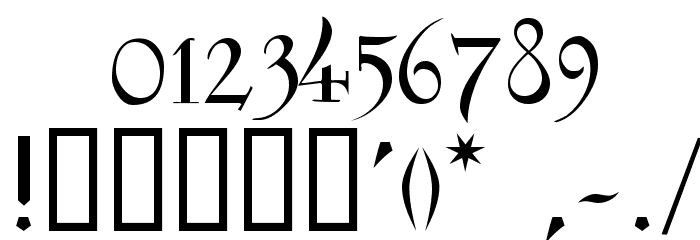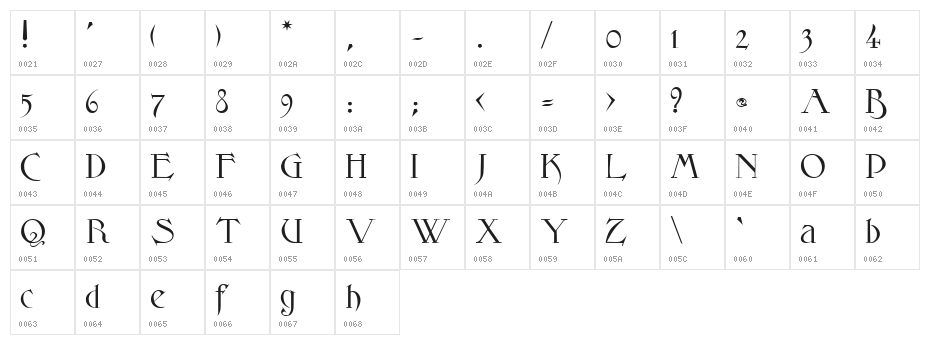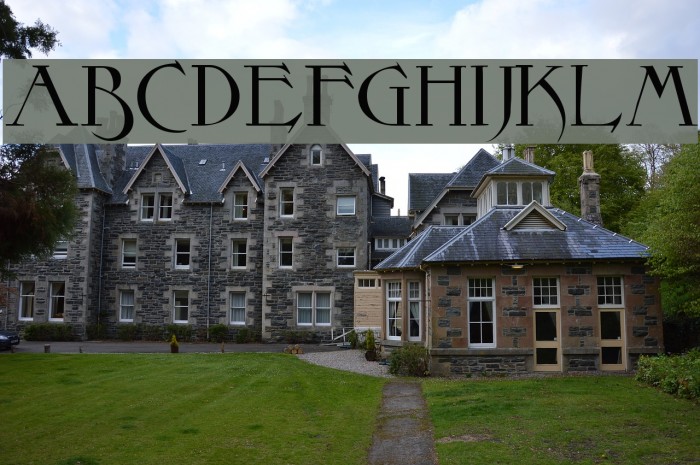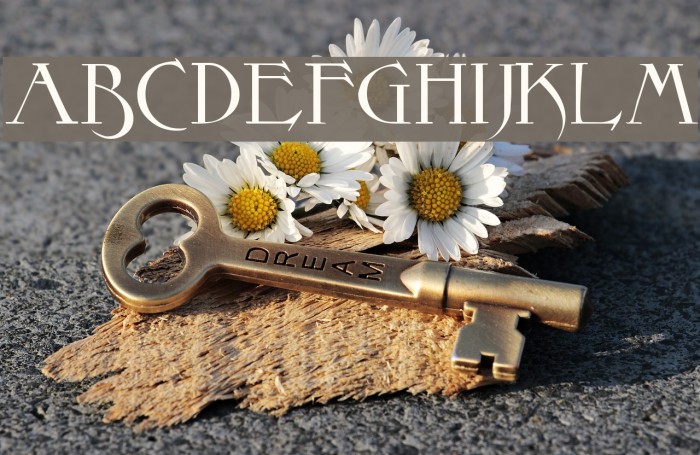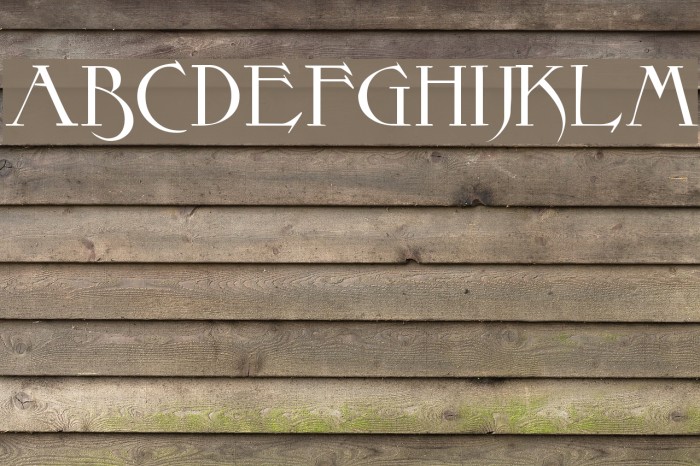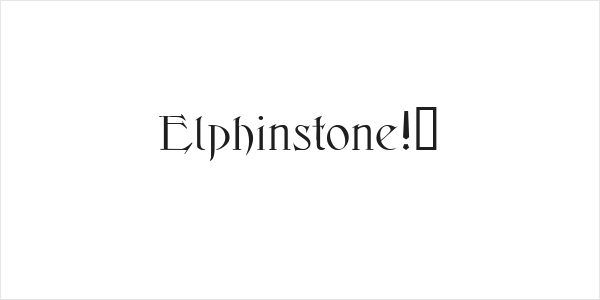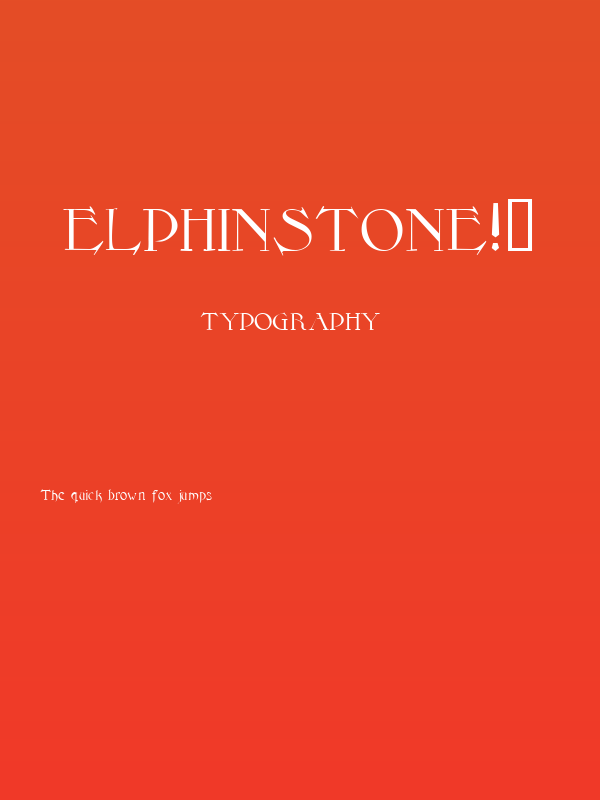
Elphinstone!" Font
Elphinstone!" Description
This font features a unique and artistic design with sharp, angular serifs and a distinct medieval flair. The uppercase letters are characterized by their dramatic strokes and pointed edges, giving them a bold and commanding presence. The lowercase letters maintain a similar style, with elegant curves and a slightly condensed form. Numbers are designed with a consistent style, featuring the same angular and pointed elements. Special characters are creatively crafted, adding to the font's overall decorative appeal. This font is ideal for projects that require a touch of historical or fantasy elements, making it suitable for book covers, posters, and themed event invitations.